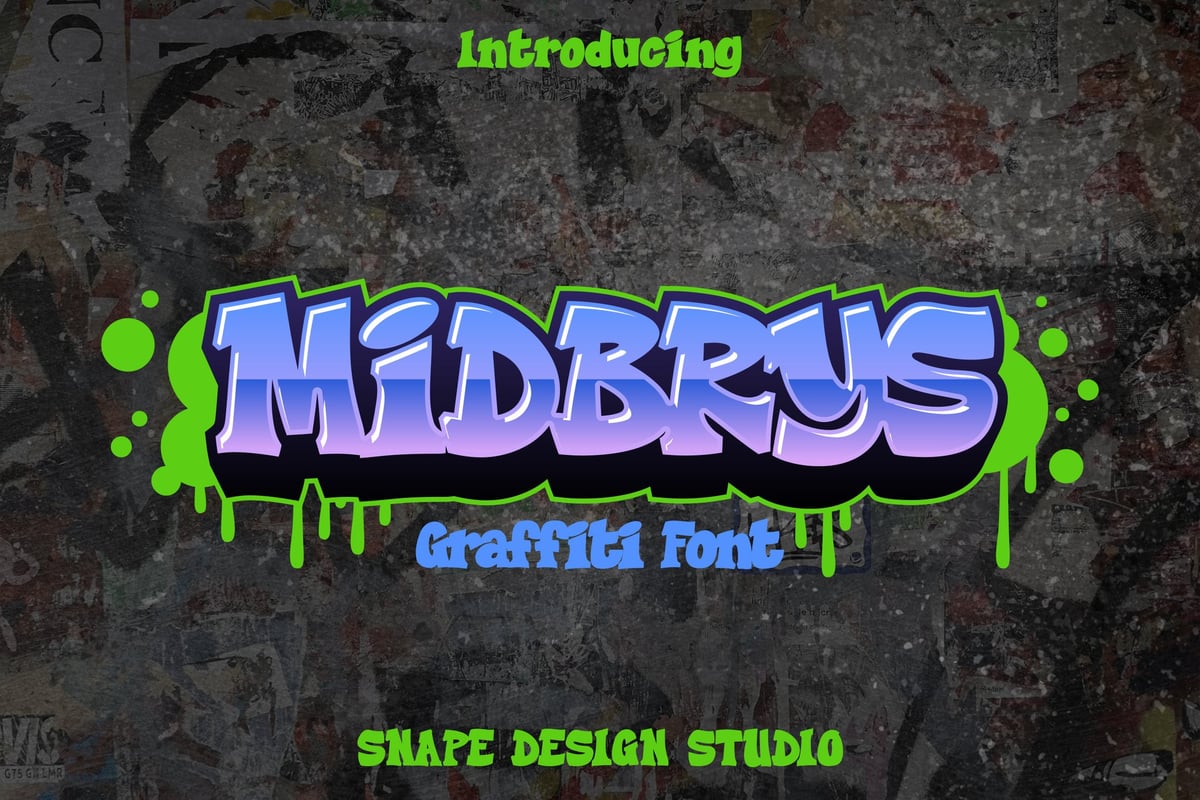
Midbrys - Graffiti Font
Unleash authentic street art vibes with MIDBRYS, a bold graffiti-inspired display font that commands attention. This distinctive typeface captures the raw energy of urban street art, making it the perfect choice for designs that need to stand out from the crowd. Whether you're working on movie titles, documentaries, film projects, logos, posters, game interfaces, or book covers, MIDBRYS delivers that authentic underground aesthetic. The font excels at creating impactful headlines and titles that...